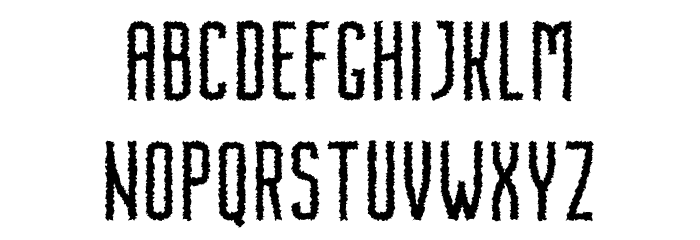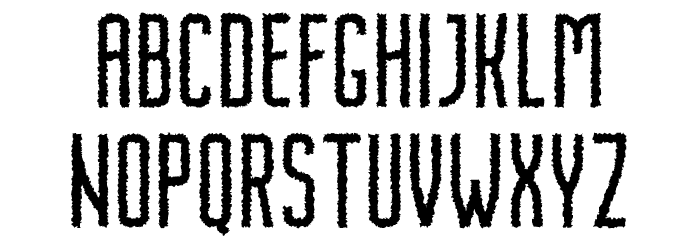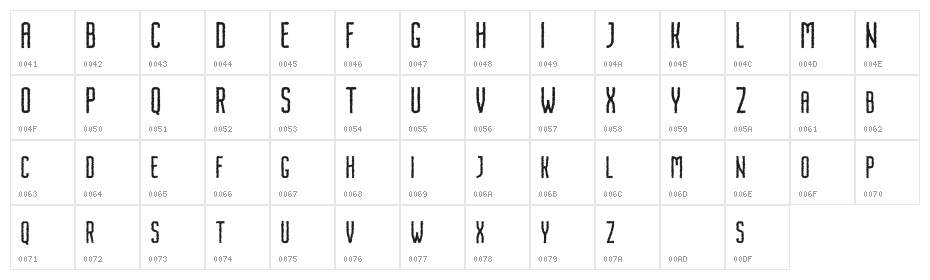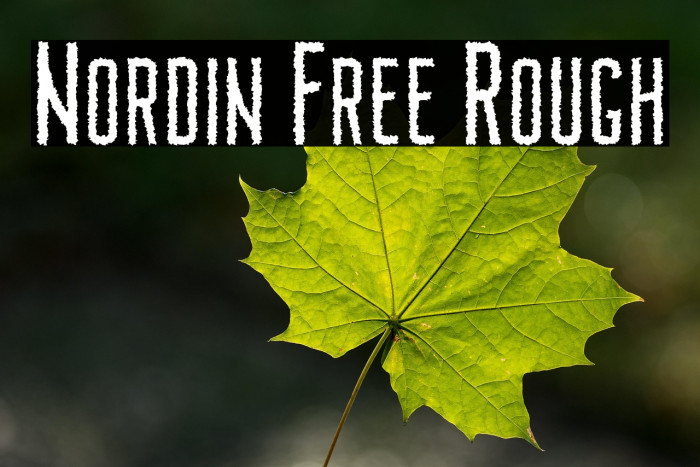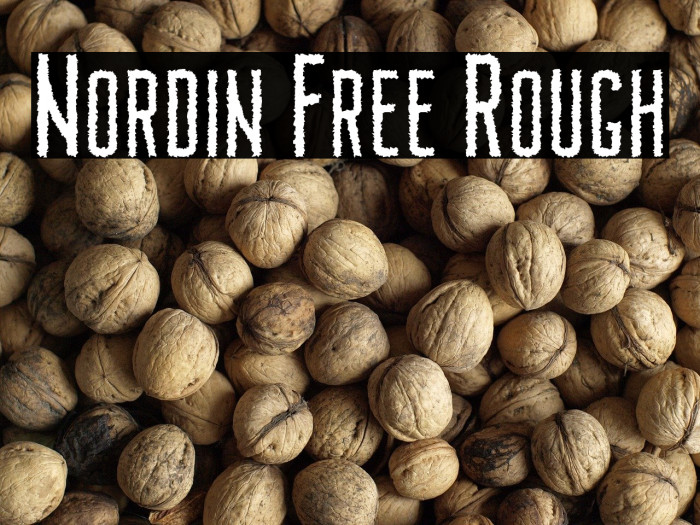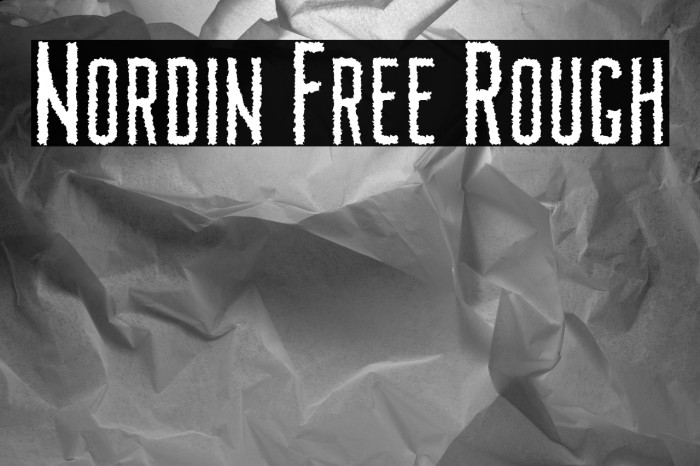
Nordin Free Rough Font
This font features a rugged, textured appearance that gives it a handcrafted and vintage feel. The characters are tall and narrow, with a slightly uneven edge that adds to its rustic charm. The uppercase letters are consistent in height, creating a uniform look across the text. The rough texture suggests a sense of authenticity and rawness, making it ideal for designs that require a touch of the handmade or artisanal. Its unique style stands out, making it suitable for attention-grabbing headlines or branding that seeks to convey a sense of tradition and craftsmanship.
A rugged, textured font with a handcrafted, vintage appeal.
- Font: Nordin Free Rough
- Proposed Projects: Ideal for branding, packaging, posters, and any design requiring a rustic or vintage touch.
- Overall Style: Vintage